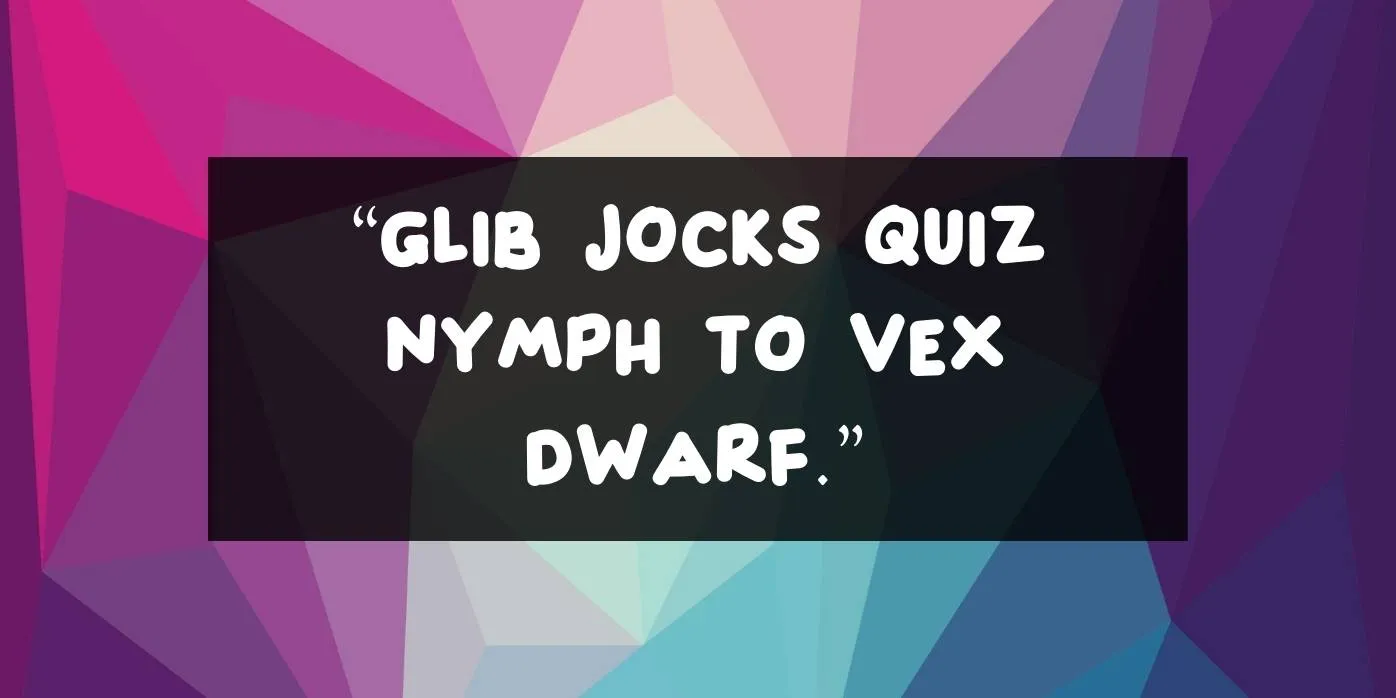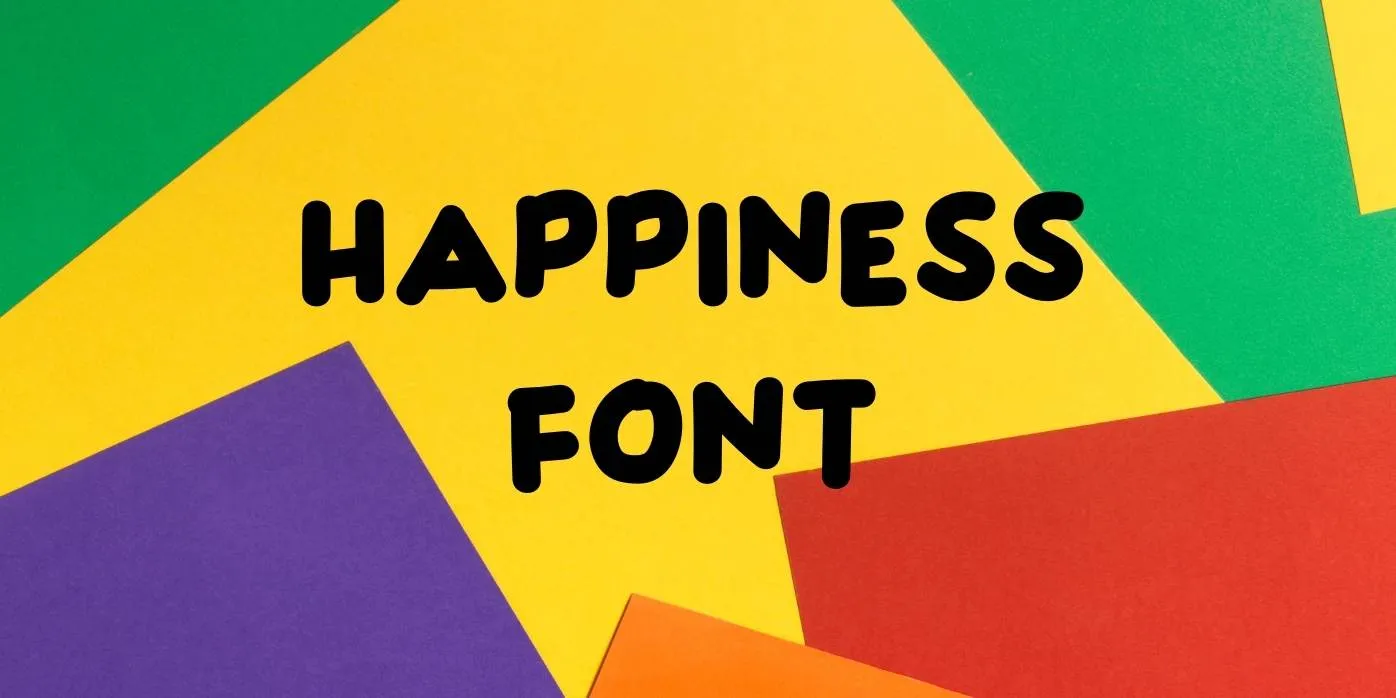
Happiness Font
Today, we discuss Happiness Font which belongs to the fancy font family. This typeface was developed by Tim Holloway and was released in 1999. This awesome font contains only uppercase letters, numbers, and punctuation marks. For more classic features, you will have to use its alternative bourbon font which has the same features.
Happiness Font is a decorative typeface that is best suited for headlines and short texts. It can be used for both digital and print projects.  It includes various styles such as Regular, Bold, and Italic. You can also its generator tool which is suitable for many projects. You can also use it for Adobe Photoshop, and various others programs.